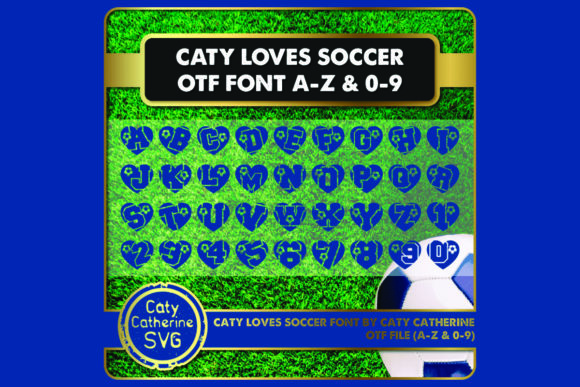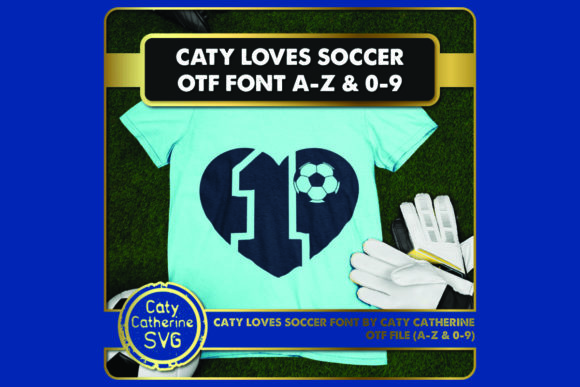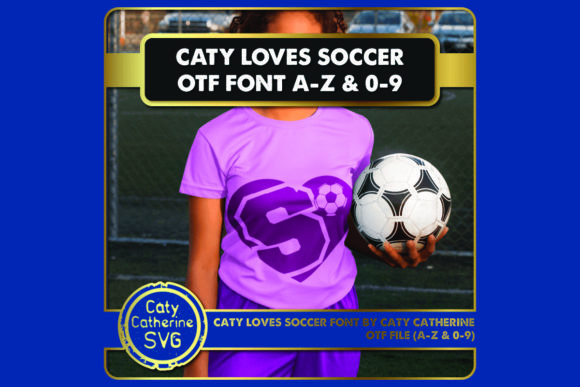
Introduction to Caty Loves Soccer Font
Do you remember the excitement of creating your first soccer-themed poster? The thrill of combining vibrant colors, creative graphics, and a dash of typography to capture the essence of the beautiful game? For designers, finding the perfect font can make all the difference between a good project and a great one. That’s where Caty Loves Soccer Font comes in – a wonderful decorative font featuring soccer balls next to each character, adding a touch of whimsy and fun to any soccer-related creative project.
With its high-quality design and transparent background, this font is a valuable resource for designers looking to elevate their work. And the best part? It’s available for free download, making it an accessible design resource for creatives of all levels. Whether you’re working on a commercial project or a personal passion project, Caty Loves Soccer Font is sure to score a goal with your audience.
- Designed in a bold and playful style, perfect for soccer-themed projects and designs.
- Unique characteristics include custom-designed soccer ball and player illustrations, adding a creative touch to any project.
Honest Review: Caty Loves Soccer Font
I recently had the chance to work with Caty Loves Soccer Font, a free download that caught my eye due to its unique and playful design. As a designer, I was excited to see how it would perform in a creative project.
What works well with Caty Loves Soccer Font is its high quality and versatility. The font is available for free download, making it a great resource for designers on a budget. The transparent background allows for seamless integration with other design elements, and the font’s bold and energetic feel is perfect for any soccer-themed project.
- ✨ Unique and playful design that adds a creative touch to any project
However, there are some limitations to consider. The font’s design may not be suitable for more formal or professional projects, and the lack of bold weight options may limit its use in certain contexts.
Overall, I’m impressed with Caty Loves Soccer Font, and I think it’s a great addition to any designer’s toolkit. With its unique design and high-quality performance, it’s a must-have resource for any creative project.
The Caty Loves Soccer Font is a high-quality, free download design resource perfect for creative projects. This versatile font features a transparent background, making it easy to use in various design applications.
The Caty Loves Soccer Font is perfect for sports-related projects, including soccer teams, tournaments, and fan merchandise. It’s also great for creative projects, such as designing posters, flyers, and social media graphics.